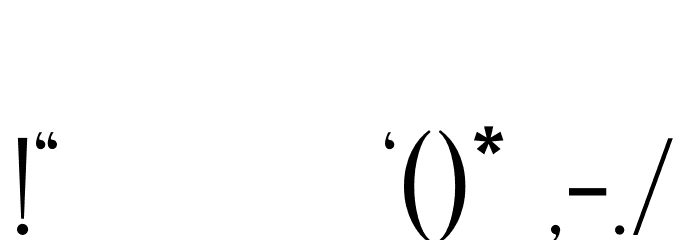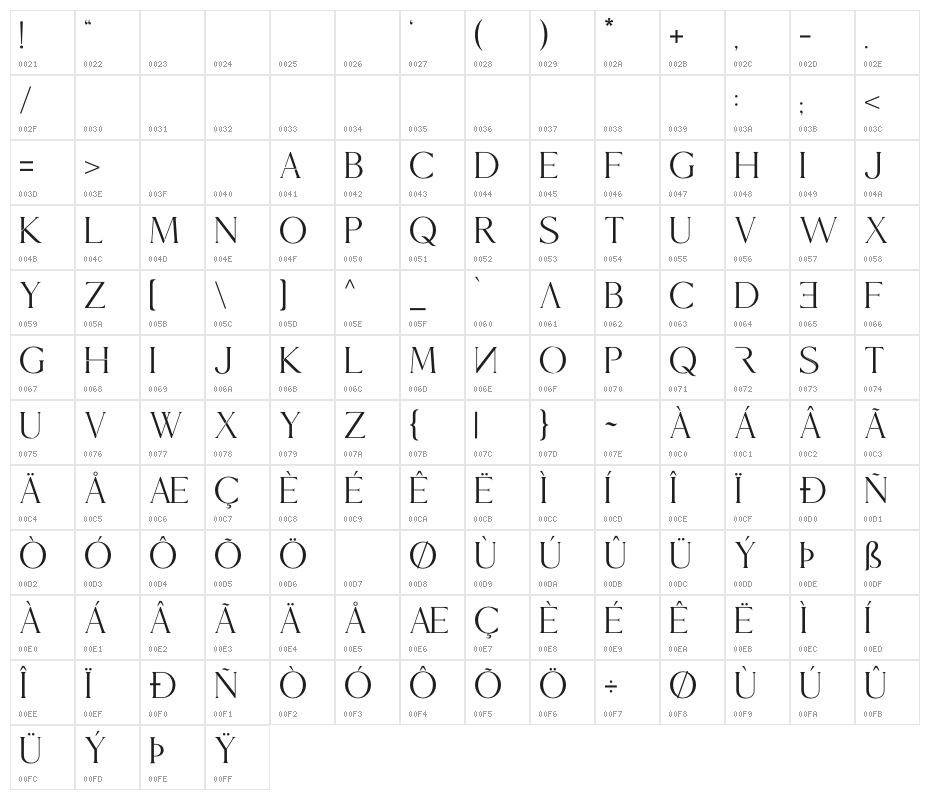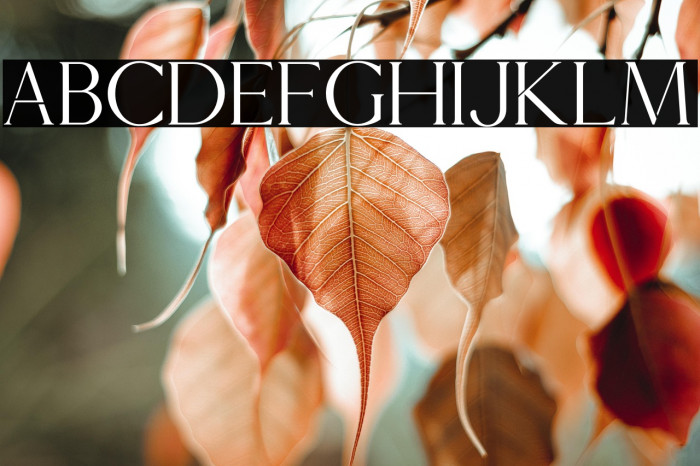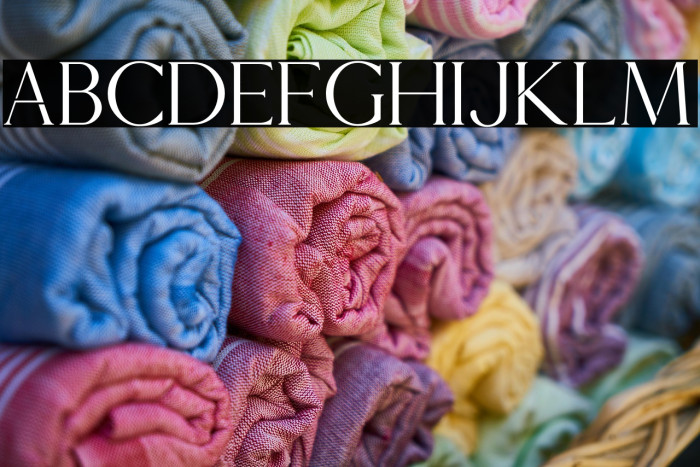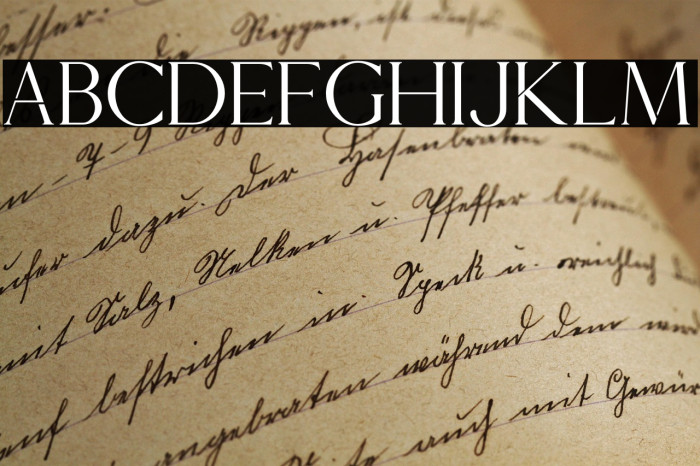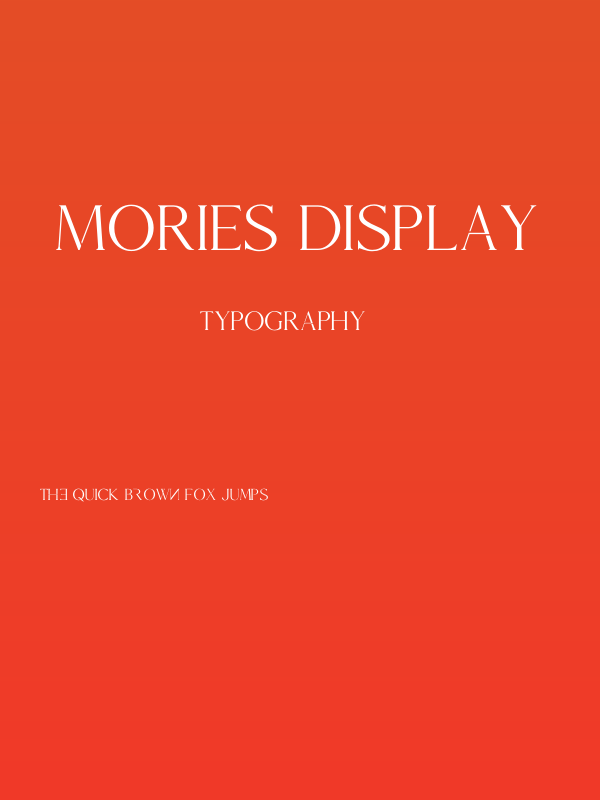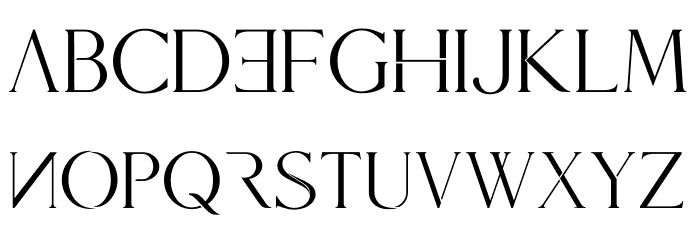
Mories Display Font
Mories Display Description
This font exudes a sophisticated and elegant style, characterized by its high contrast between thick and thin strokes. The letters are sharply defined, with a modern twist on classic serif elements. The uppercase letters are particularly striking, with unique angular serifs that add a touch of flair. The lowercase letters maintain a consistent style, ensuring readability while still being visually appealing. The numerals and special characters follow the same design principles, making them cohesive with the overall font style. This font is perfect for projects that require a touch of elegance and modernity.
| Proposed Projects | Ideal for luxury branding, editorial design, wedding invitations, and high-end product packaging. |